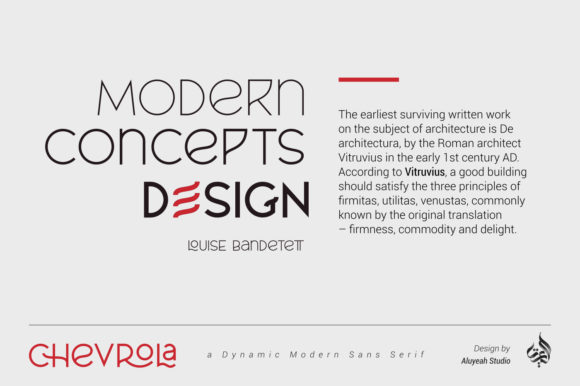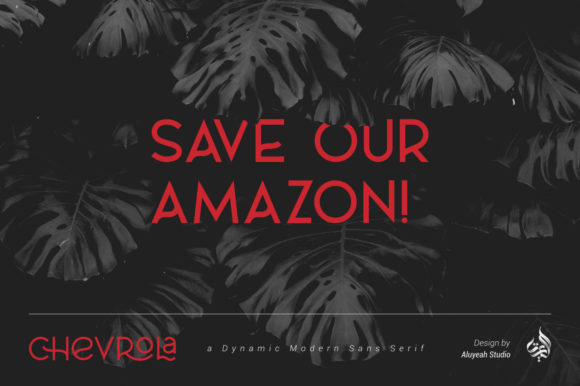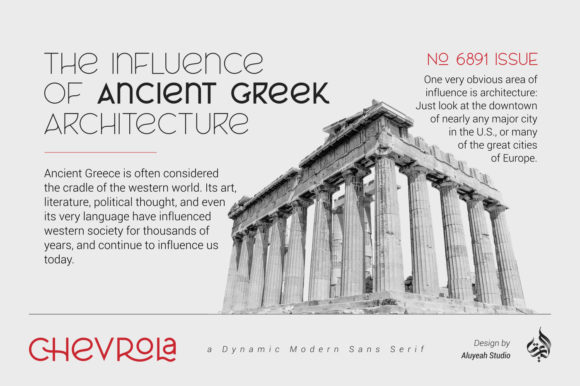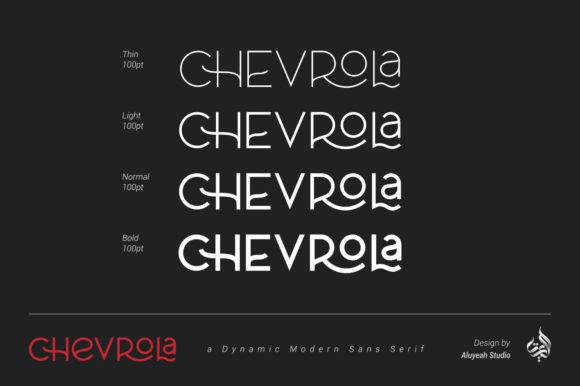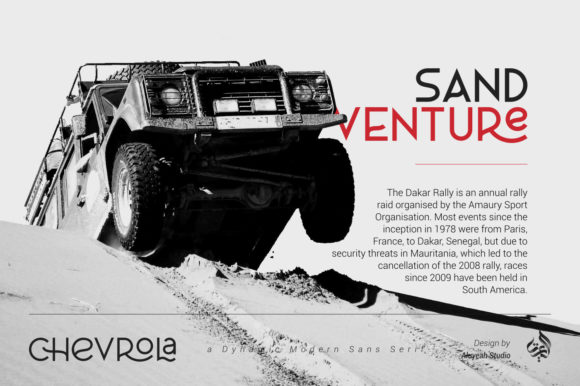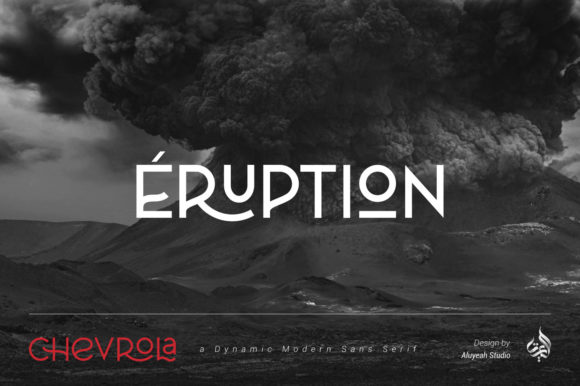
Introducing AL Chevrola Font: A Modern Sans Serif Marvel
In the realm of typography, fonts play a pivotal role in conveying messages, evoking emotions, and enhancing the aesthetic appeal of any design project. Among the myriad of fonts available to designers and crafters, the AL Chevrola Font stands out as a dynamic, modern sans serif font that embodies both strength and elegance. This article aims to provide an in-depth look at the AL Chevrola Font, exploring its characteristics, uses, and the unique value it offers to creative professionals.
Characteristics of AL Chevrola Font
AL Chevrola is described as an extremely strong font with elegant and naturally flowing curves. This combination of robustness and grace makes it versatile for a wide range of design applications, from digital media to print. The font’s modern sans serif design ensures it remains clean and legible across various platforms, making it an excellent choice for both body text and headlines.
- Dynamic and Modern Design: The AL Chevrola Font boasts a contemporary look that can instantly elevate the visual appeal of any project.
- Strong yet Elegant: Its unique blend of strength and elegance allows it to be used in a variety of contexts, from corporate branding to creative crafts.
- Elegant Curves: The naturally flowing curves of the font add a touch of sophistication, setting it apart from more generic sans serif fonts.
- Versatility: Suitable for a broad spectrum of design needs, including but not limited to, logos, brochures, websites, and social media graphics.
Applications of AL Chevrola Font
The versatility of the AL Chevrola Font makes it an invaluable asset for designers and crafters. Here are some of the key areas where this font can make a significant impact:
Digital Design:
In the digital realm, the AL Chevrola Font can be used in website design, mobile app interfaces, and social media graphics. Its clean lines and modern aesthetic ensure that it stands out in a crowded digital landscape.
Print Design:
For print materials, such as brochures, posters, and business cards, the font’s elegance and strength come to the fore. It can help create visually appealing and professional-looking materials.
Crafting and DIY Projects:
Crafters can also benefit from using the AL Chevrola Font in their projects, such as handmade cards, scrapbooking, and other paper crafts. The font’s unique characteristics can add a personal touch to any craft project.
Why Choose AL Chevrola Font?
With so many fonts available, why should designers and crafters choose AL Chevrola? The answer lies in its unique combination of modernity, strength, and elegance. This font is not just about aesthetics; it’s about making a statement. Whether you’re working on a corporate brand identity or a personal craft project, the AL Chevrola Font offers the flexibility and style to bring your vision to life.
The AL Chevrola Font is a dynamic, modern sans serif font that brings a unique blend of strength and elegance to the world of typography. Its versatility, combined with its distinctive characteristics, makes it an excellent choice for designers and crafters looking to add a touch of sophistication and modernity to their projects. Whether you’re creating digital content, print materials, or handmade crafts, the AL Chevrola Font is sure to make your work stand out.
In conclusion, if you’re on the lookout for a font that combines the robustness of a modern sans serif with the elegance of naturally flowing curves, look no further than the AL Chevrola Font. Its potential applications are vast, and its benefits are undeniable. Make your designs pop with the AL Chevrola Font – a true marvel in the world of typography.